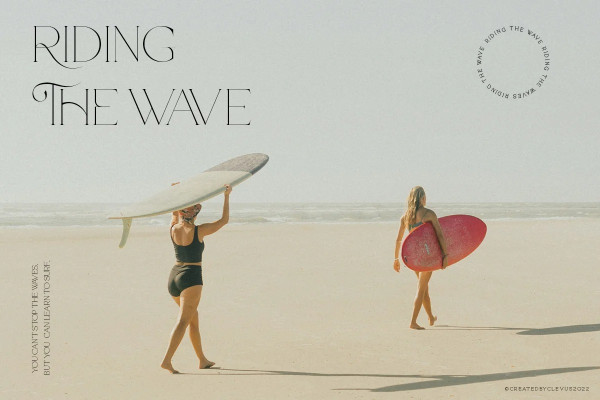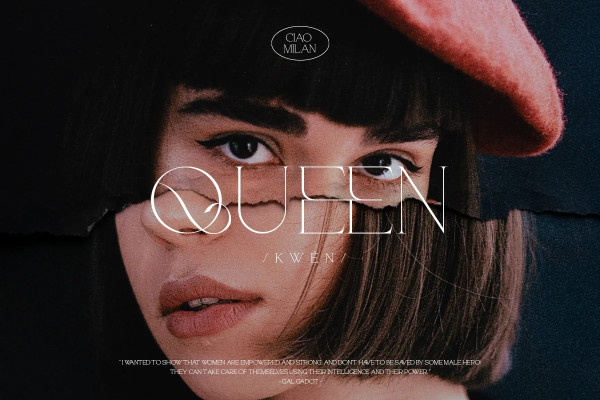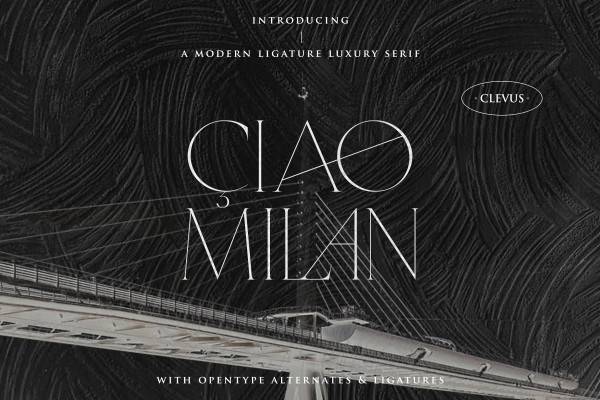
CiaoMilan Font
CiaoMilan Font, created by ClevUs, A serif modern ligature and alternate classic typeface that has own unique style & modern look. This typeface is perfect for an elegant & luxury logo, book or movie title design, fashion brand, magazine, clothes, lettering, quotes, and so much more.